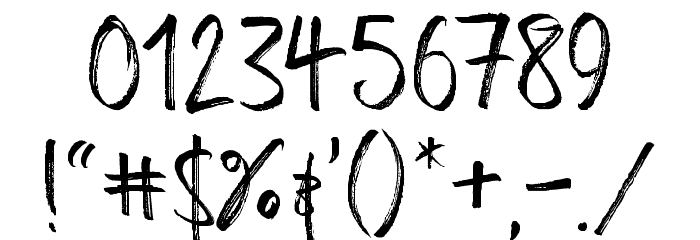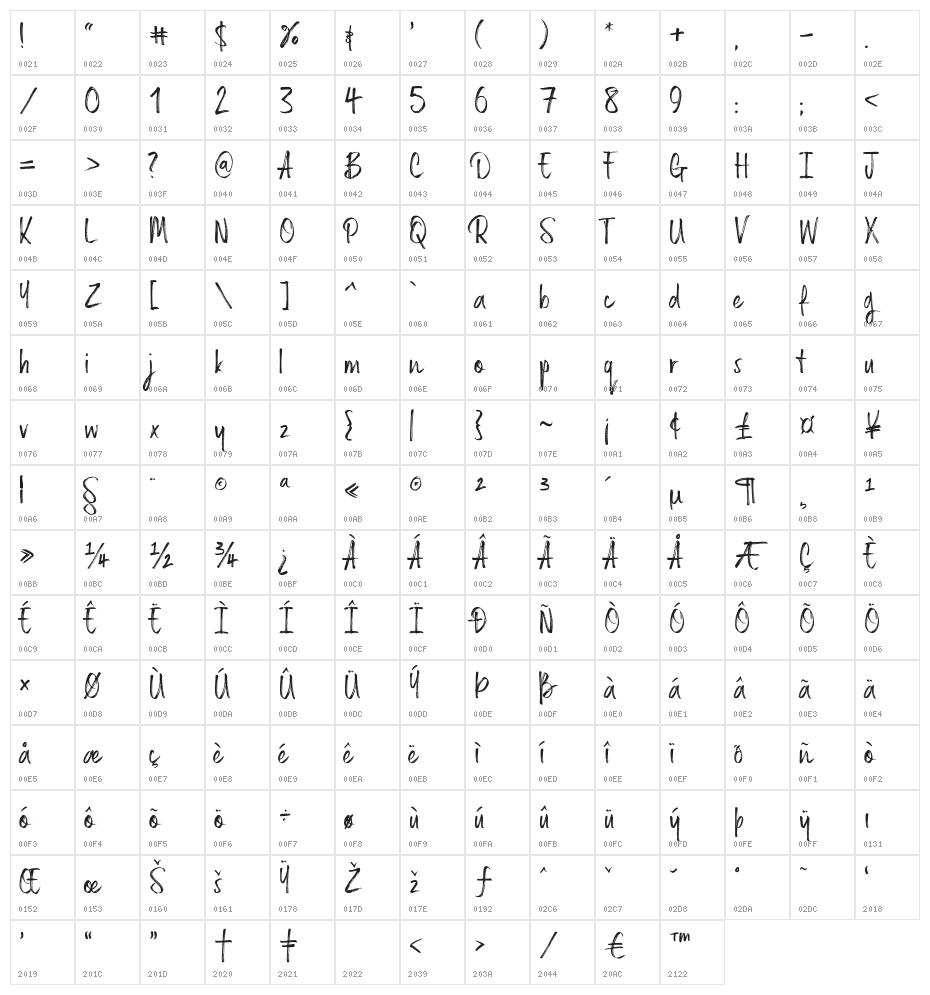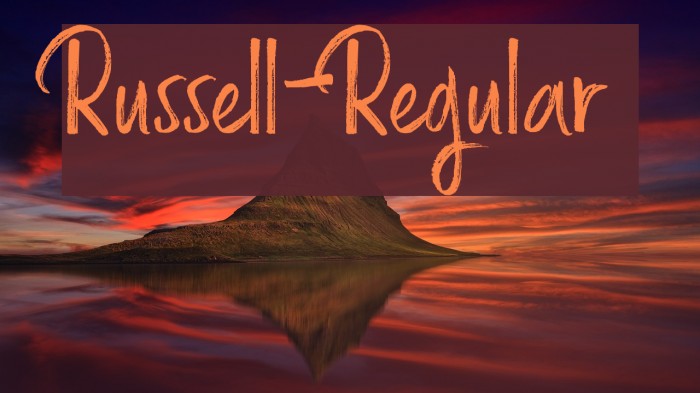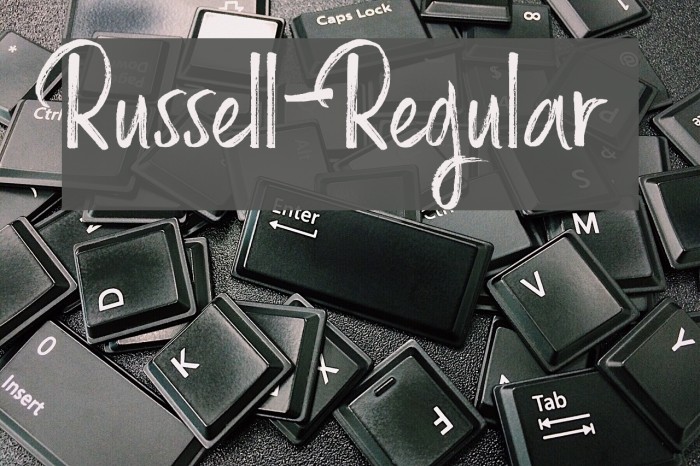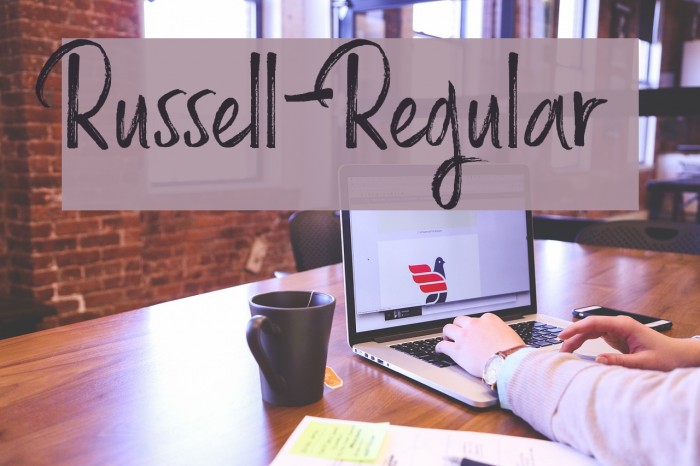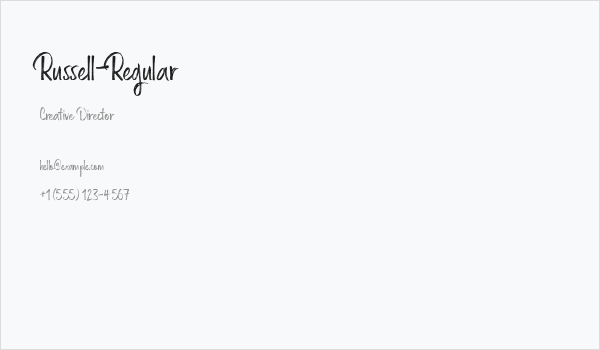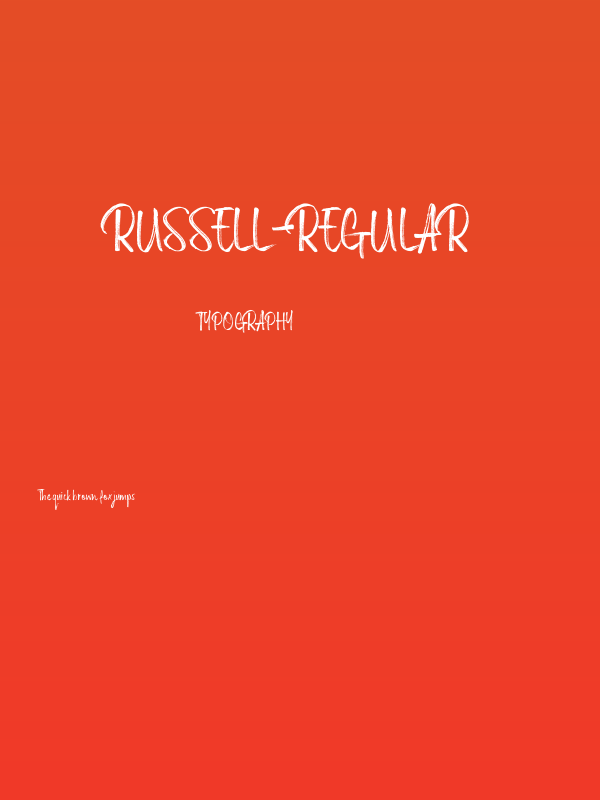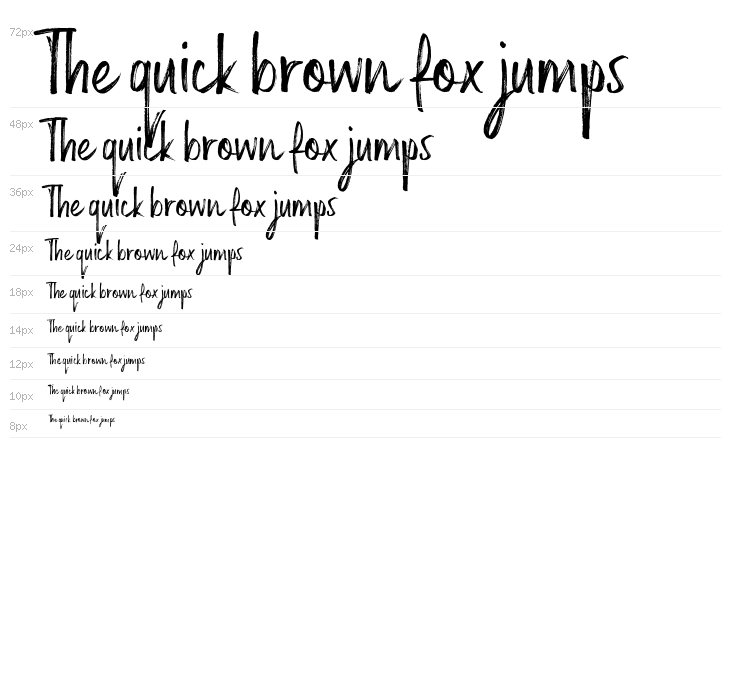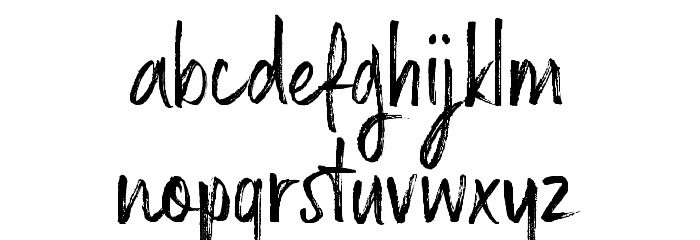
Russell-Regular Font
Russell-Regular Description
This font exudes a casual, handwritten style with a playful and artistic flair. The strokes are uneven, giving it a dynamic and lively appearance. Each character is unique, with varying thicknesses that add to its charm. The uppercase letters are bold and expressive, while the lowercase letters maintain a consistent flow. Numbers and special characters are crafted with the same attention to detail, making them stand out. This font is perfect for projects that require a personal touch, such as invitations, greeting cards, or creative branding.
| Overall Style | Casual, Artistic |
| Proposed Projects | Ideal for invitations, greeting cards, creative branding, and artistic projects. |